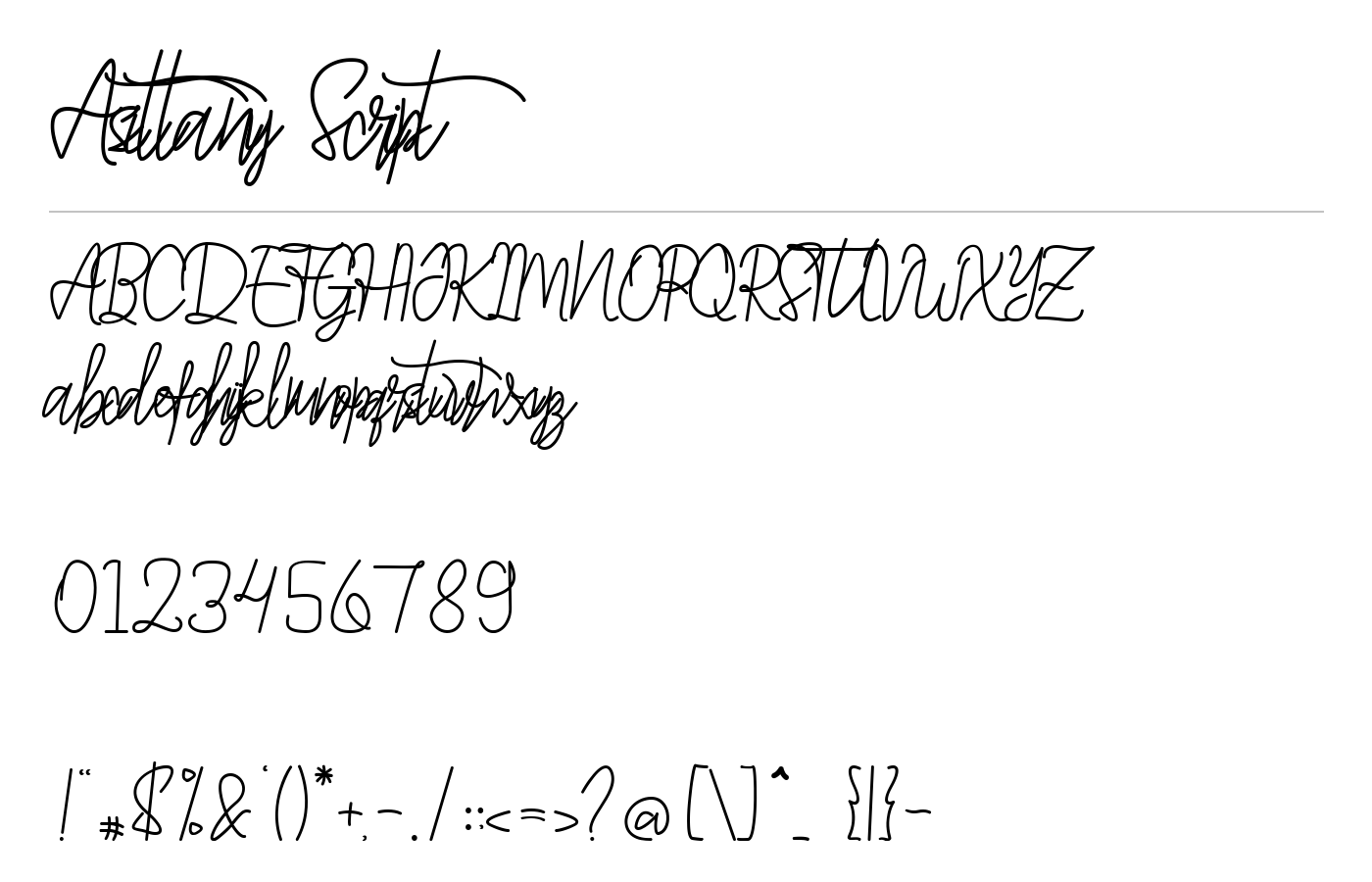
Asittany Script is a delicate, narrow script font with a lively and handwritten feel, featuring slender strokes and elegant, flowing letterforms. Its tall x-height and closely spaced characters give it a distinctive, personal touch that works beautifully for creative branding, invitations, and stylish editorial designs. This font’s graceful and modern script style makes it ideal for projects seeking a charming, artistic flair with a refined yet approachable personality.
Asittany Script Font
About Asittany Script Font
| Font family | Asittany Script Font |
| Designer | Tio yulianto |